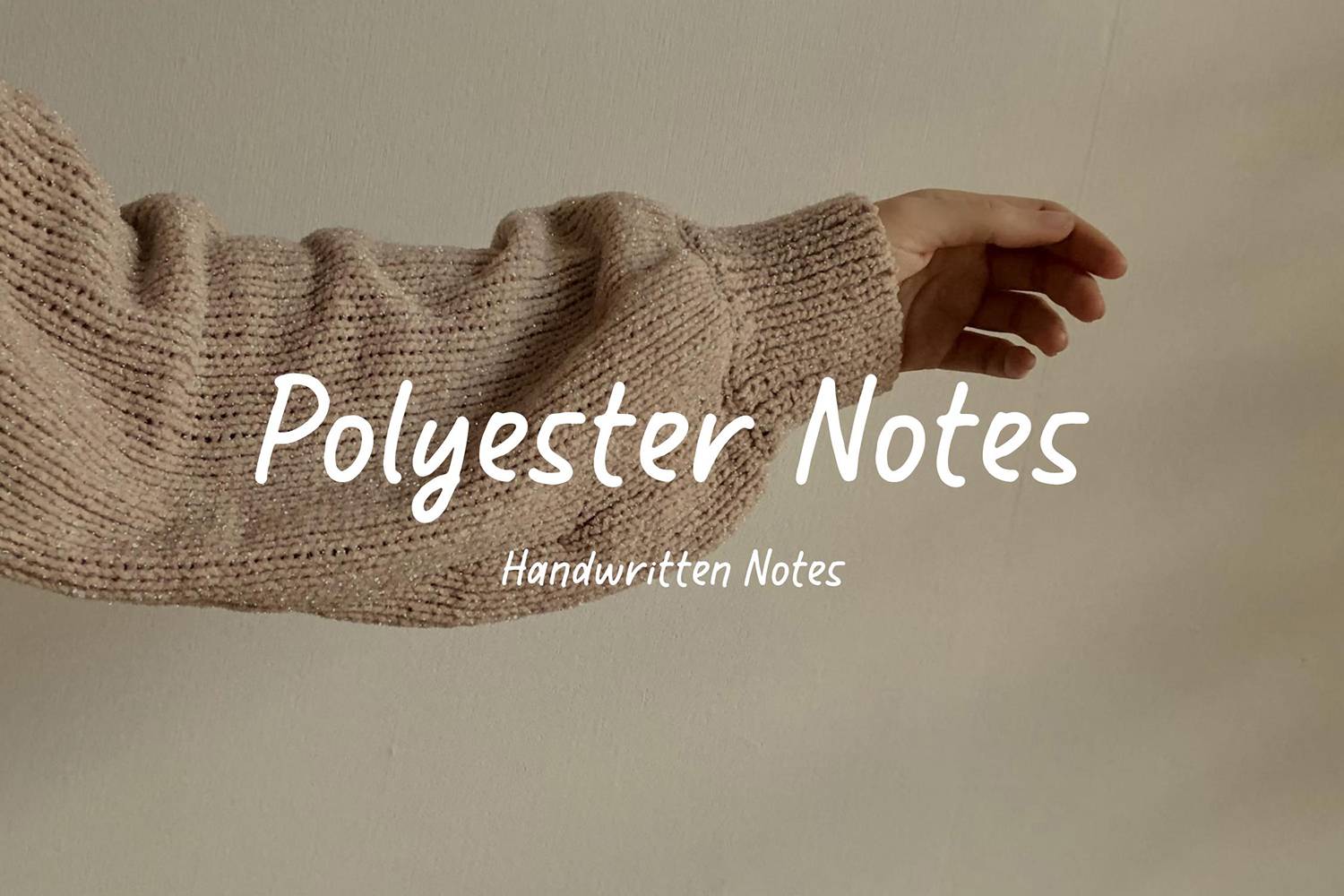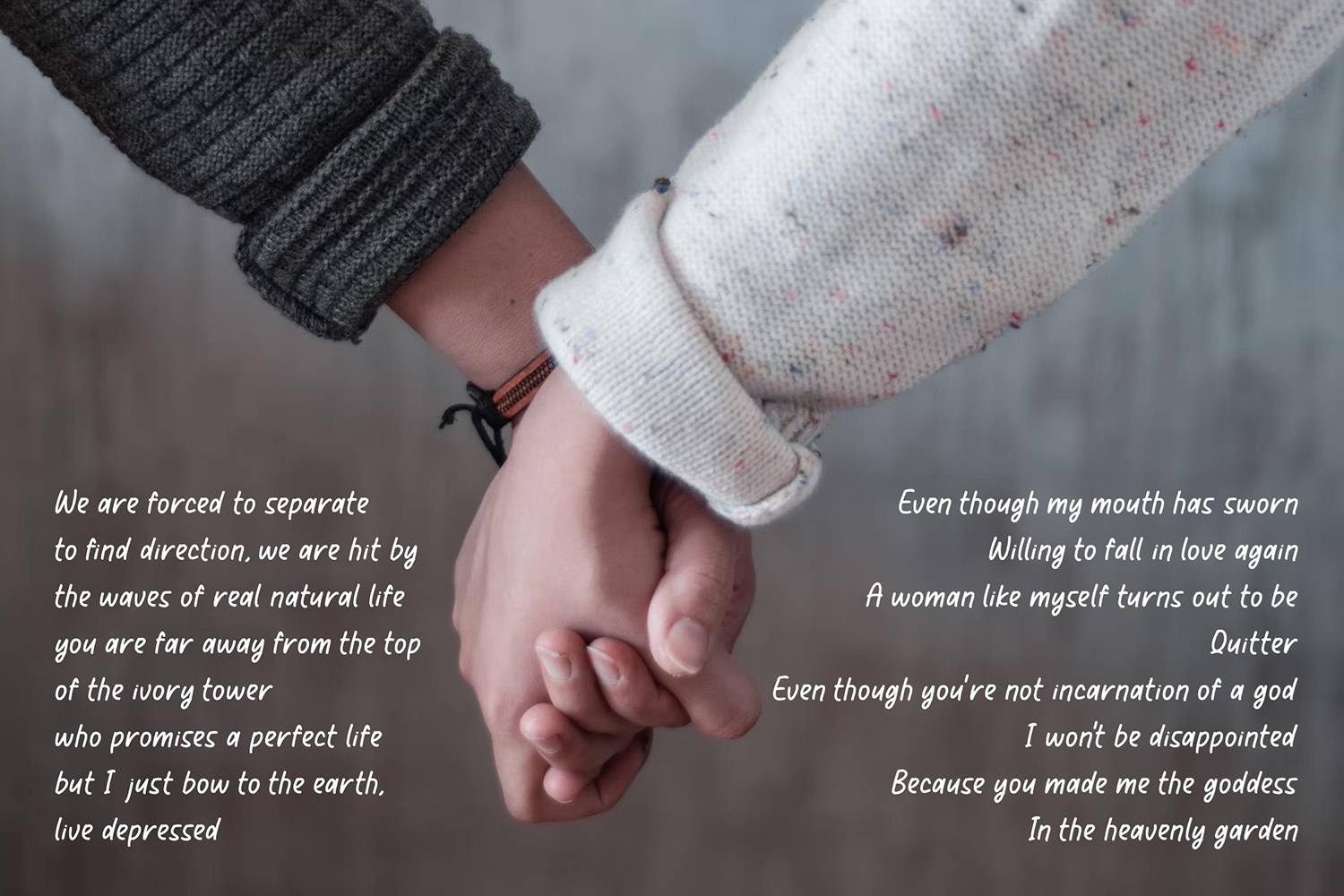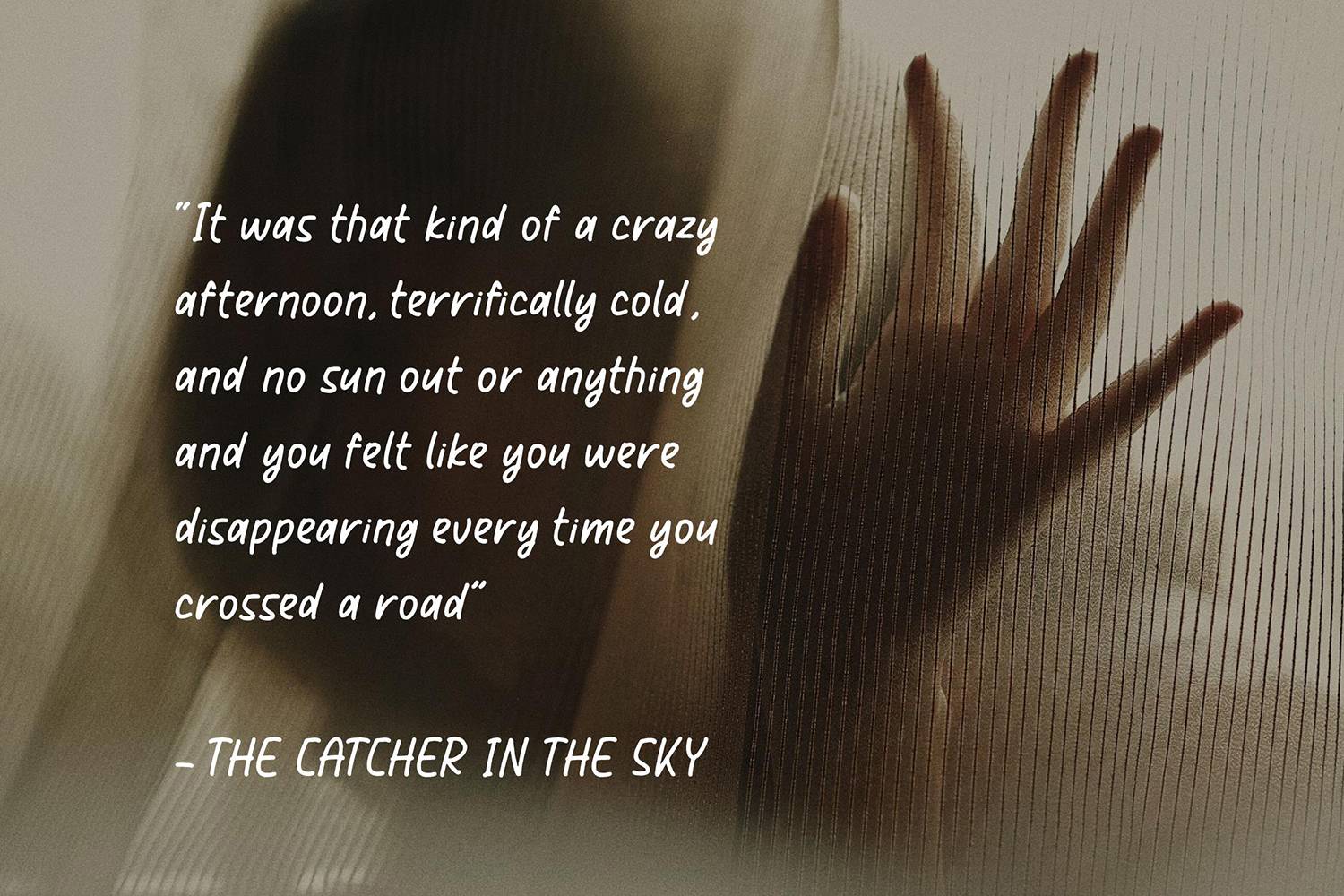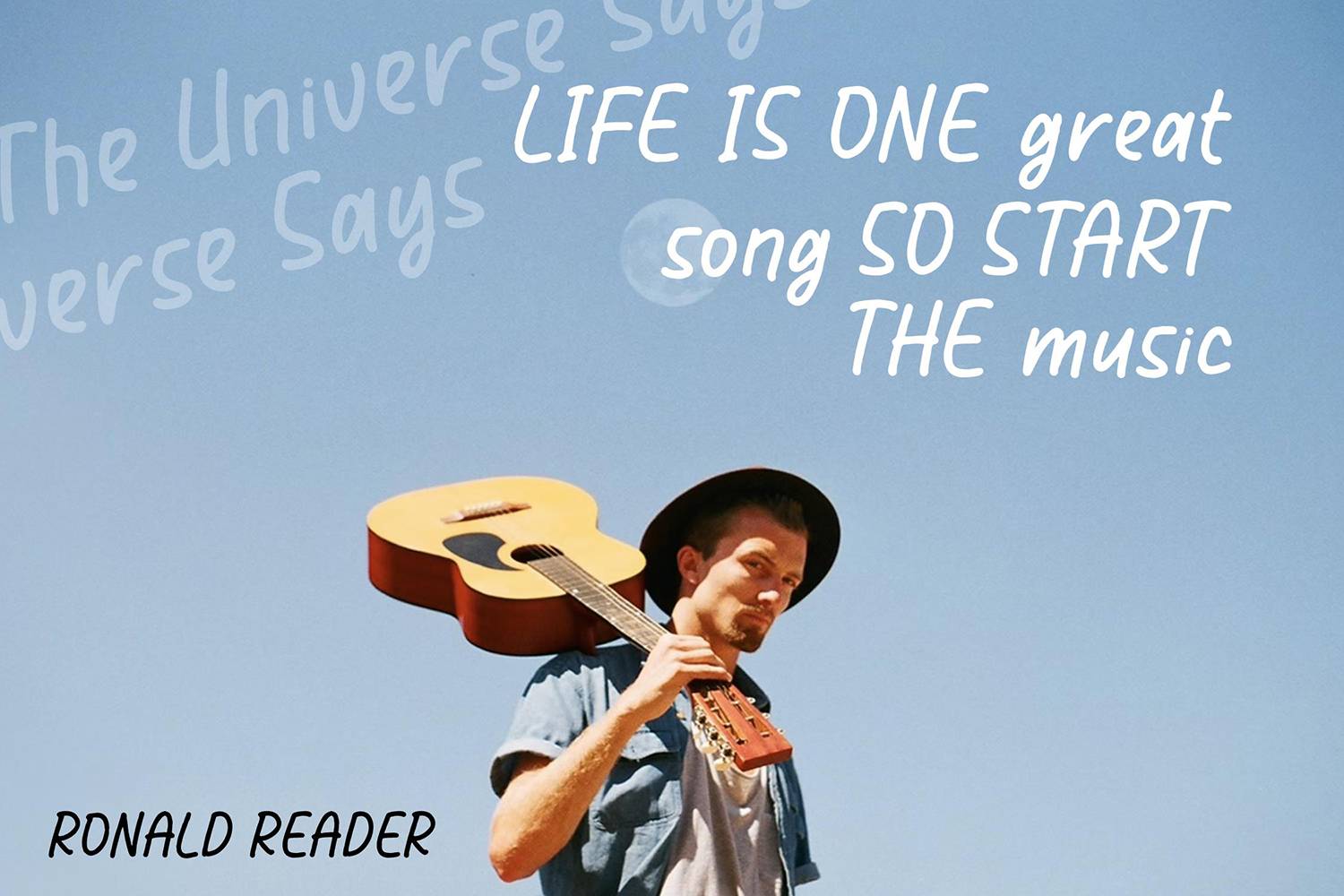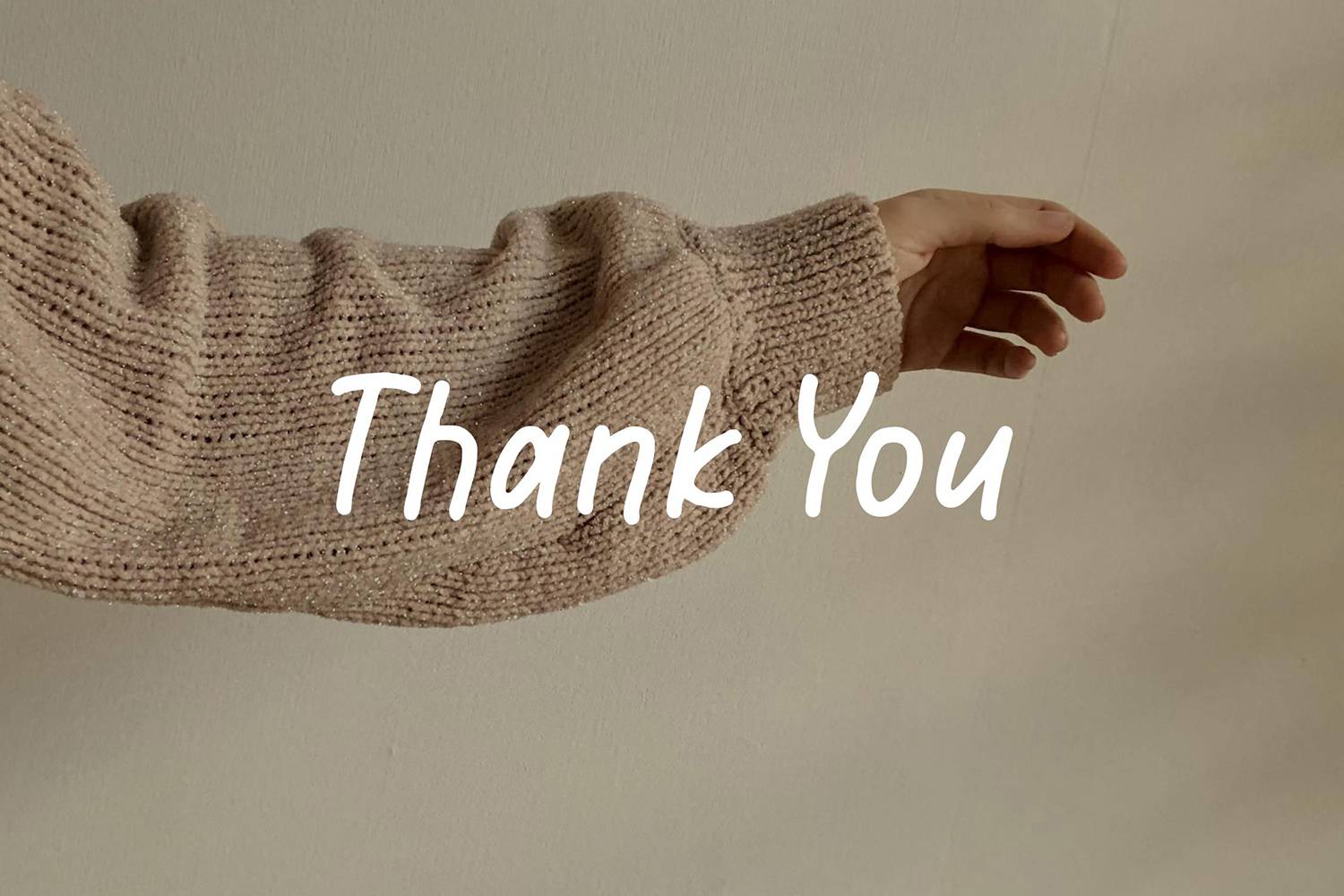
Polyester Notes is a casual handwritten sans serif font with a lively and friendly feel, featuring medium weight and slightly condensed letterforms with a moderate x-height. Its strokes are smooth and slightly irregular, giving it a natural, personal touch similar to informal note-taking, perfect for adding warmth and approachability to designs. This font works well for projects needing a human, relaxed tone such as personal branding, casual invitations, or creative headlines where a handwritten authenticity is desired.
Polyester Notes Font